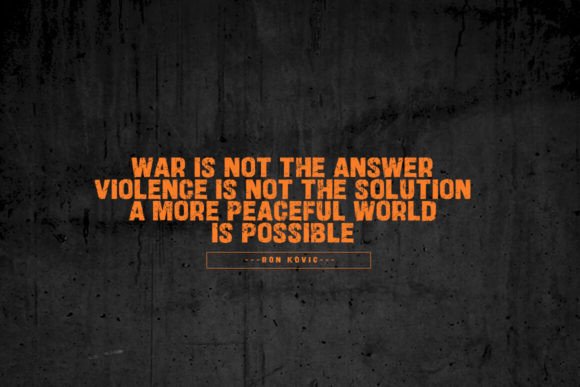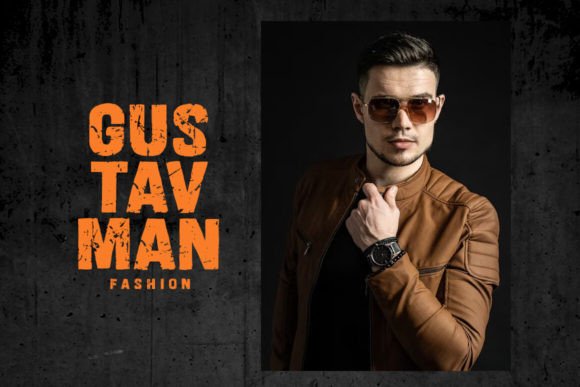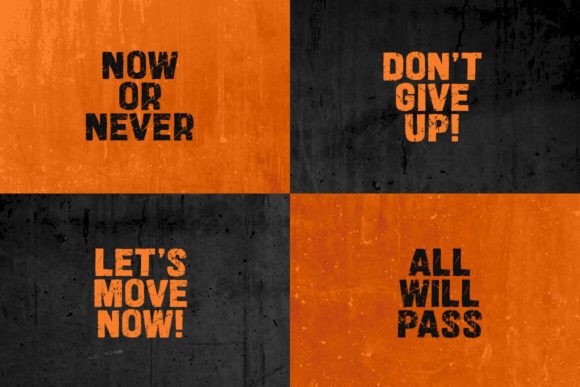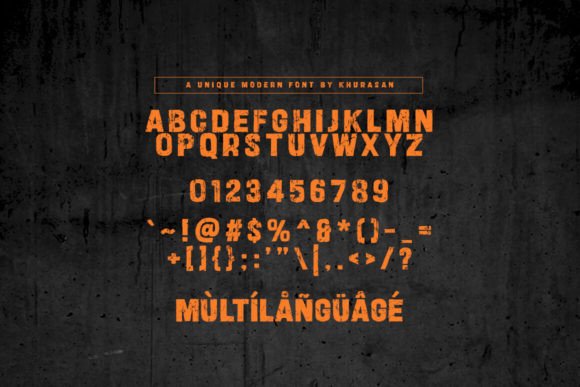
Get Now Font: Elevate Your Designs with a Modern Sans Serif Rough Font
Are you on the lookout for a font that can add a touch of modernity and quirkiness to your designs? Look no further than the Get Now font! This modern sans serif rough font is perfect for a wide range of design projects, from posters and logos to magazines, book covers, banners, and more. In this article, we’ll dive into the features and benefits of the Get Now font, and explore how you can use it to take your designs to the next level.
What is Get Now Font?
Get Now font is a unique and versatile typeface that is designed to add a touch of edginess to your designs. Its rough, sans serif texture gives it a modern and trendy feel that’s perfect for designers who want to create bold and eye-catching designs. The font is highly legible, making it suitable for use in a wide range of applications, from headlines and titles to body text and captions.
Key Features of Get Now Font
- Modern Sans Serif Design: Get Now font features a sleek and modern sans serif design that’s perfect for creating contemporary designs.
- Rough Texture: The font’s rough texture adds a touch of edginess and uniqueness to your designs, setting them apart from more traditional typefaces.
- Highly Legible: Despite its rough texture, Get Now font is highly legible, making it suitable for use in a wide range of applications.
- Versatile: Get Now font can be used in a wide range of design projects, from posters and logos to magazines, book covers, banners, and more.
Benefits of Using Get Now Font
So why should you choose Get Now font for your next design project? Here are just a few benefits of using this versatile typeface:
- Adds a Touch of Modernity: Get Now font’s modern sans serif design and rough texture give it a trendy and contemporary feel that’s perfect for designers who want to create bold and eye-catching designs.
- Perfect for a Wide Range of Projects: The font’s versatility makes it suitable for use in a wide range of design projects, from posters and logos to magazines, book covers, banners, and more.
- Easily Matches with Other Design Elements: Get Now font’s unique texture and design make it easy to match with other design elements, such as images, graphics, and colors.
- Helps Your Designs Stand Out: The font’s quirky and edgy design helps your designs stand out from the crowd, making it perfect for designers who want to create unique and memorable designs.
How to Use Get Now Font in Your Designs
Using Get Now font in your designs is easy! Here are a few tips to get you started:
- Pair it with Bold Colors: Get Now font’s rough texture and modern design make it perfect for pairing with bold and bright colors.
- Use it for Headlines and Titles: The font’s high legibility and unique texture make it perfect for use in headlines and titles.
- Experiment with Different Sizes and Styles: Get Now font comes in a range of sizes and styles, so don’t be afraid to experiment and find the one that works best for your design.
In conclusion, Get Now font is a versatile and modern sans serif rough font that’s perfect for designers who want to add a touch of quirkiness and edginess to their designs. Its unique texture and design make it suitable for use in a wide range of design projects, from posters and logos to magazines, book covers, banners, and more. With its high legibility and versatility, Get Now font is a great addition to any designer’s toolkit. So why wait? Get Now Font and start creating stunning designs today!